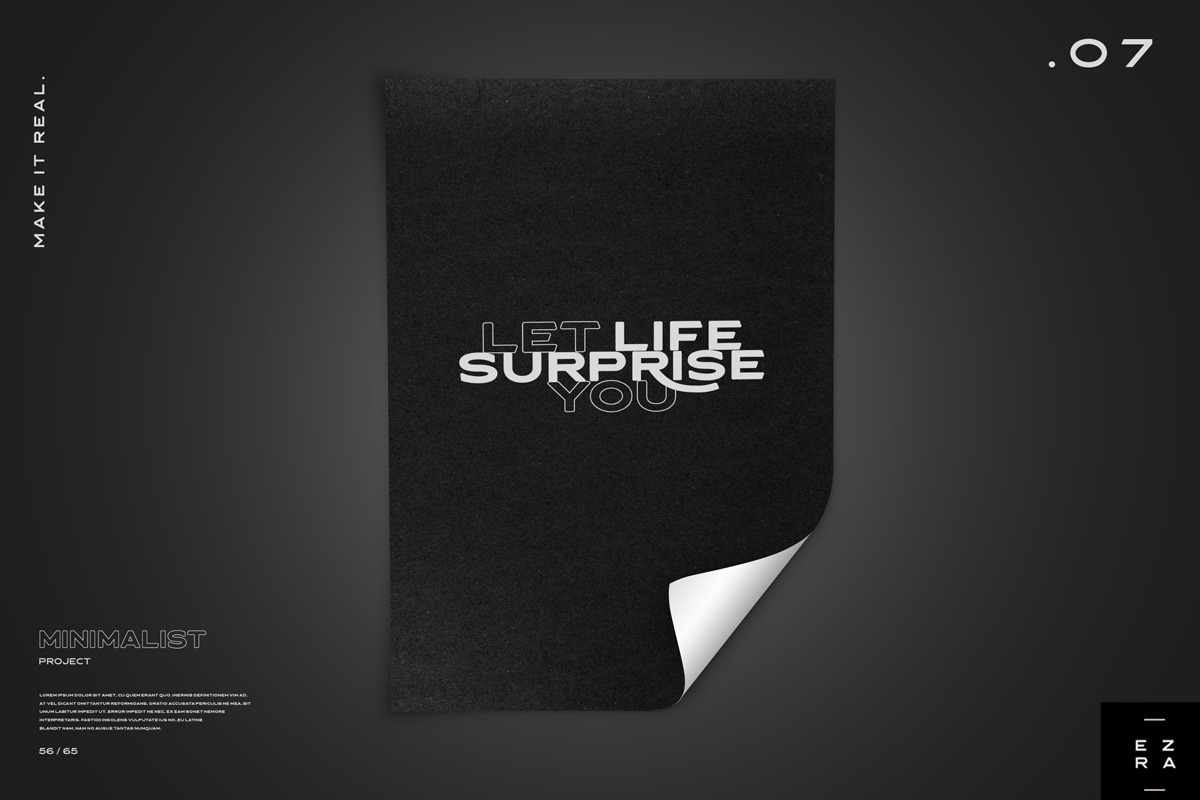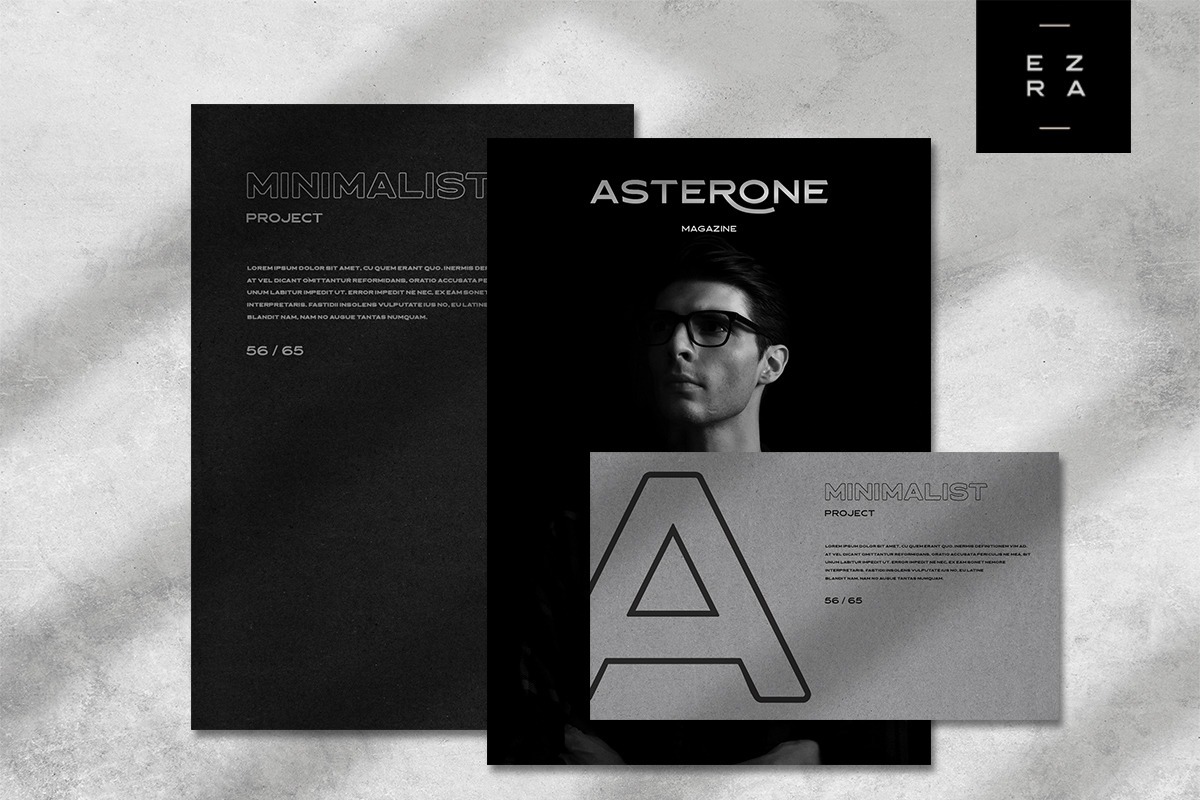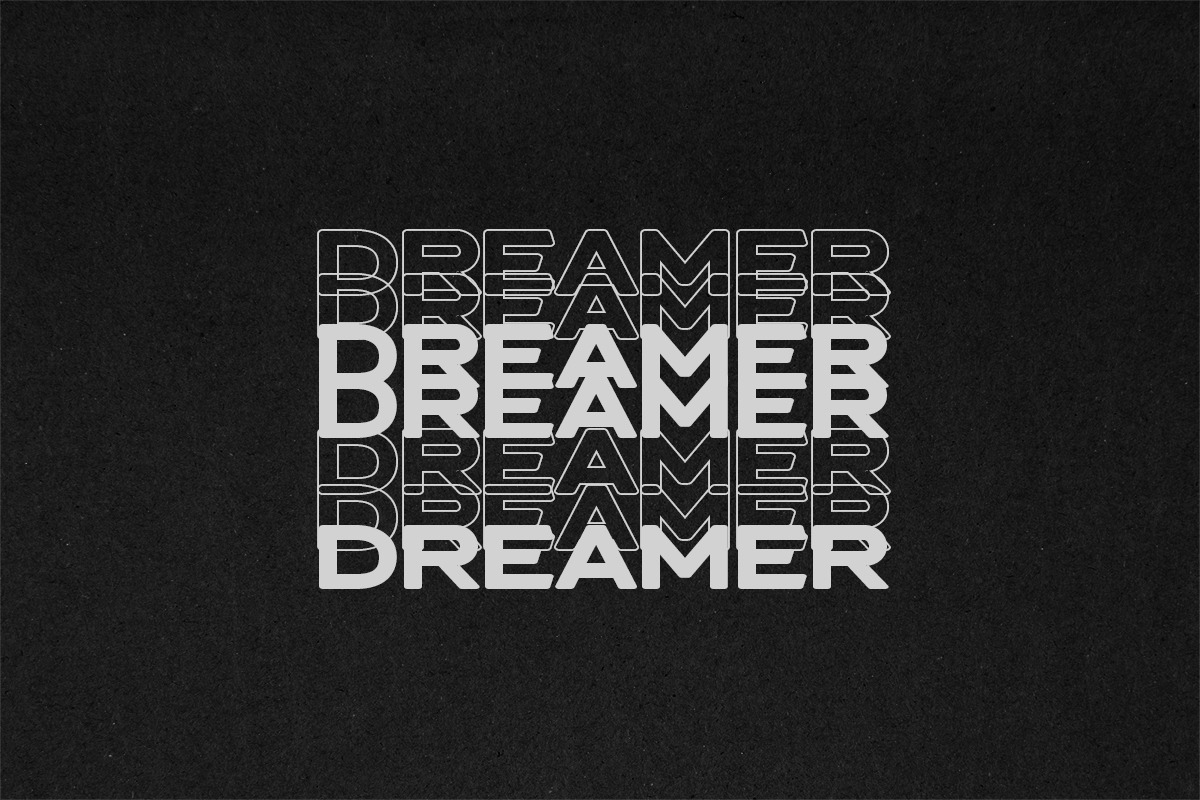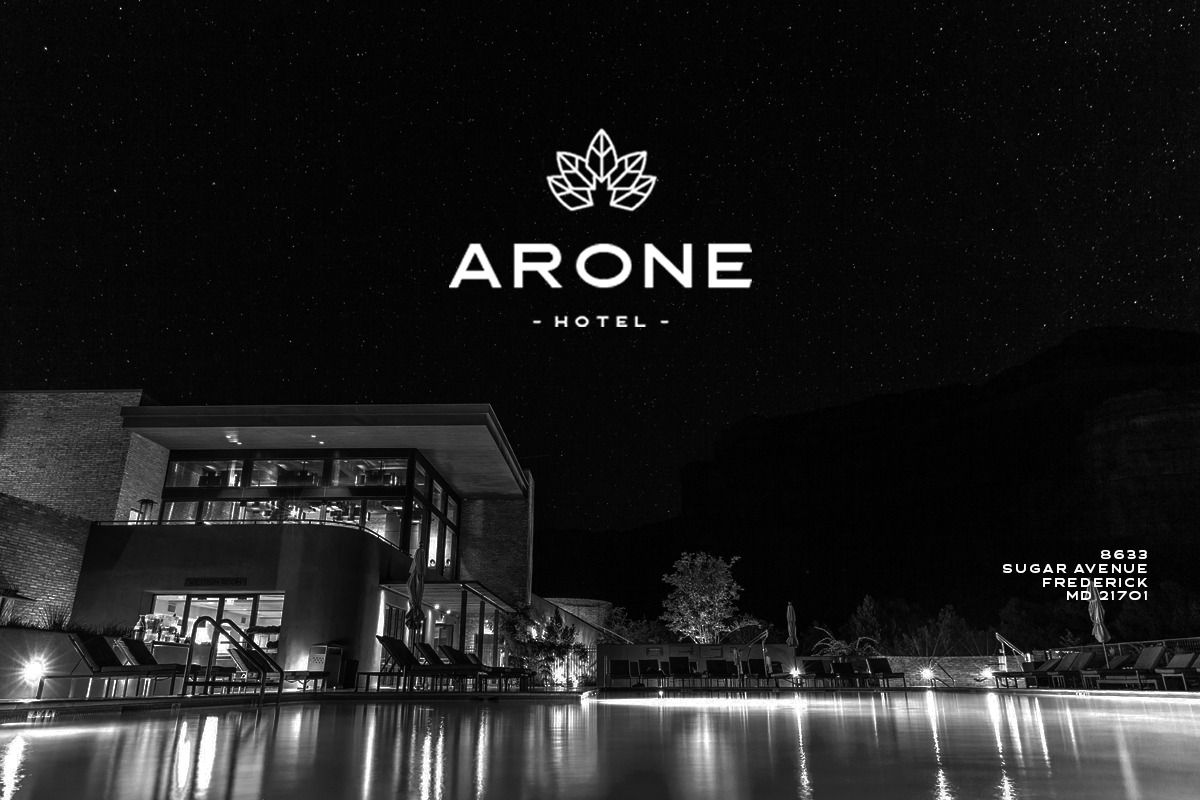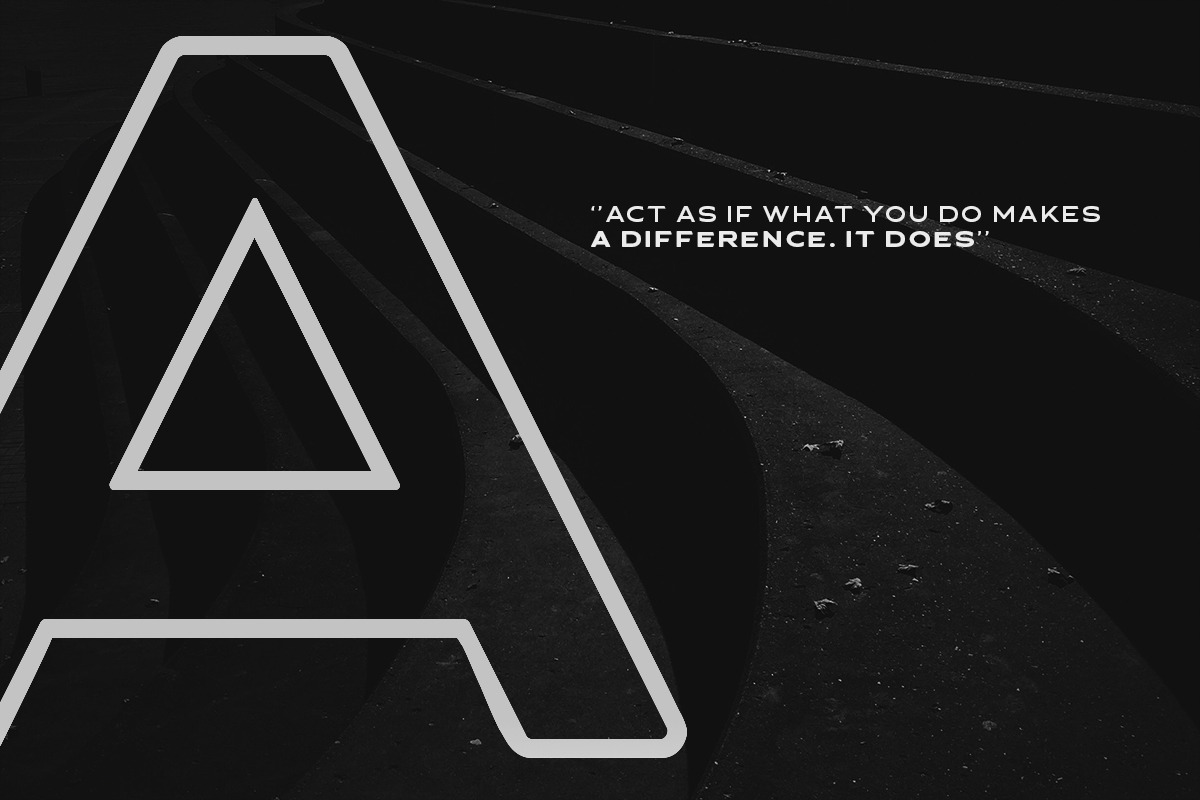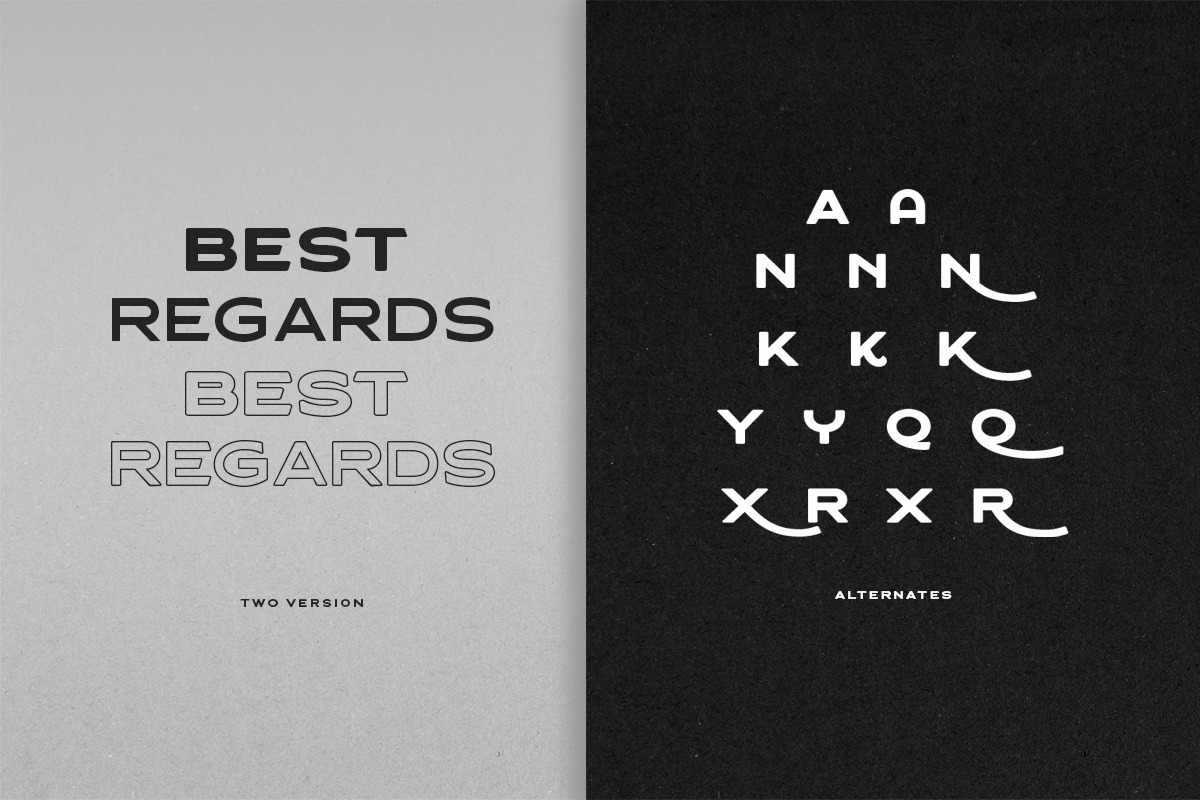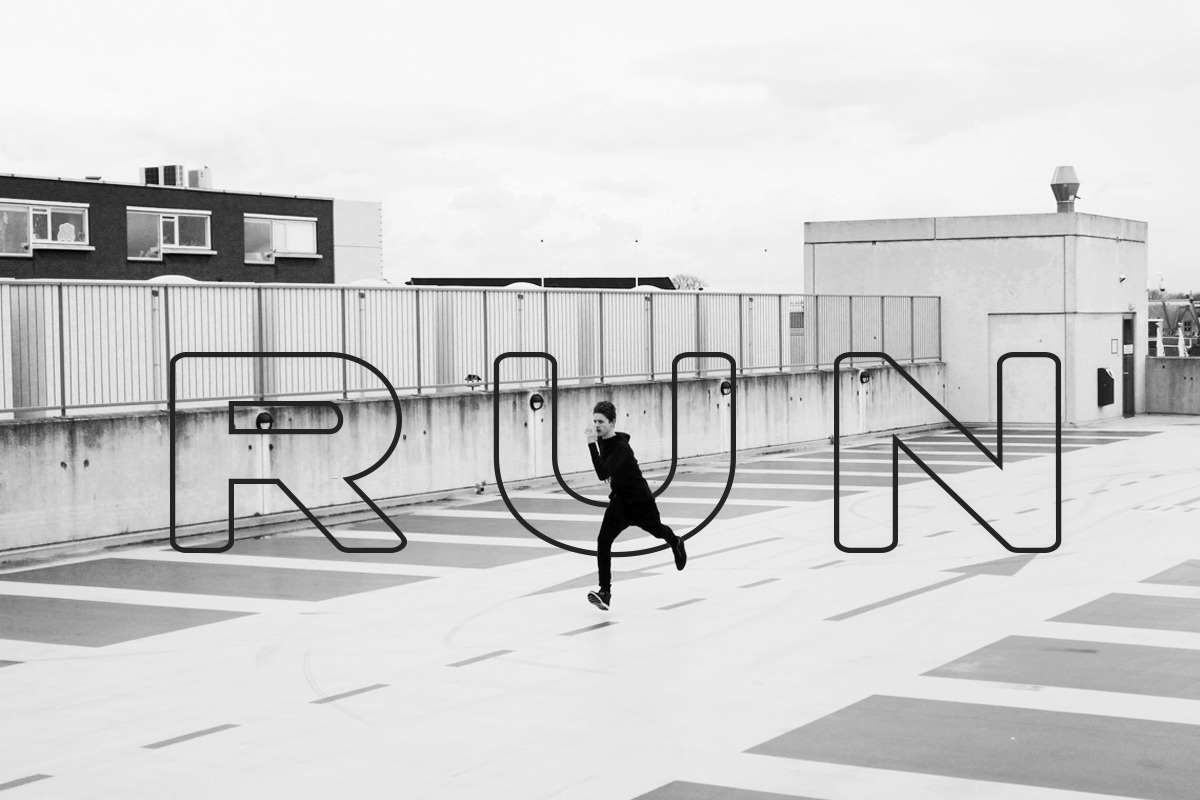
Asterone - Modern Font Family
Introducing, Asterone. A modern font family. They works perfect for you who needs a typeface for headline, logotype, apparel, invitation, branding, packaging, advertising etc. This typeface is comes in uppercase, lowercase, punctuation, symbols, numerals, stylistic set alternate, ligatures, etc also support multilingual.
- This typeface is comes in uppercase, lowercase, punctuation, symbols, numerals, stylistic set alternate, ligatures, etc also support multili
- Asterone Regular
- Asterone Outline Regular
- Asterone Bold
- Asterone Outline Bold